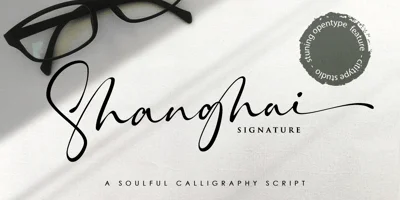
Shanghai Signature Font
Shanghai Signature Font excels in sophisticated design applications including luxury Chinese restaurants, high-end Asian fashion brands, international business presentations, cosmopolitan hotel communications, modern Chinese cultural centers, upscale tea house branding, contemporary Asian art galleries, metropolitan lifestyle magazines, elegant event materials, and prestigious Asian business campaigns. This refined typeface brings Shanghai glamour to culturally-sophisticated design projects.
What makes Shanghai Signature Font truly exciting is its perfect fusion of traditional Chinese elegance with contemporary metropolitan style that captures the dynamic energy of modern Shanghai through sophisticated letterforms. The font features gracefully crafted characters with cosmopolitan proportions and urban sophistication that convey luxury, international appeal, and the vibrant cultural fusion that defines modern Chinese cities. Its metropolitan personality and Chinese elegance make it ideal for brands celebrating modern Chinese culture, international business, and audiences who appreciate cosmopolitan sophistication, cultural fusion, and the exciting blend of traditional heritage with contemporary innovation.
The Shanghai Signature Font family typically includes Regular weight with potential elegant variations and metropolitan flourishes that enhance its sophisticated character. These cosmopolitan options provide designers with complete modern Chinese styling while maintaining the font's distinctive urban elegance and cultural presentation across various luxury applications and international contexts.
Whether you're developing luxury Asian branding, creating cosmopolitan campaigns, or designing international business materials, Shanghai Signature Font delivers the metropolitan authority and Chinese sophistication that cultural luxury projects require. Its exceptional elegance and cosmopolitan appeal make it invaluable for designers working with luxury Asian brands, international businesses, and culturally-sophisticated organizations requiring typography that celebrates modern Chinese culture, metropolitan elegance, and the dynamic fusion of traditional Chinese heritage with contemporary global sophistication that defines today's vibrant Chinese cultural landscape.